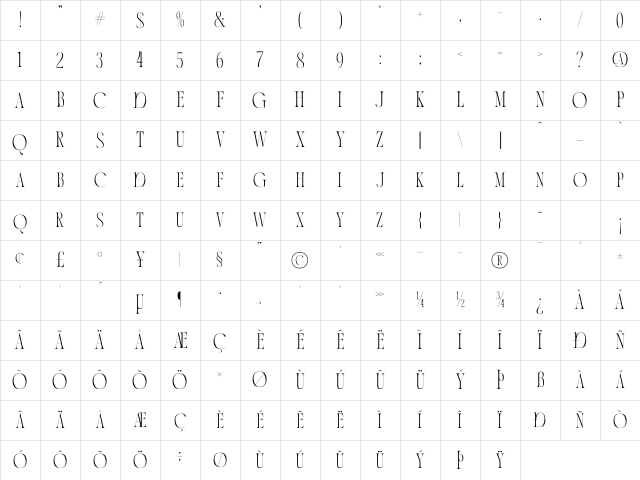
Ronachy Regular
Foundry: Storytype Studio
Designer: Heru Utama Putra
Design Context for Ronachy
Ronachy is a composed and adaptable typeface that performs quietly and consistently across a wide range of design contexts.